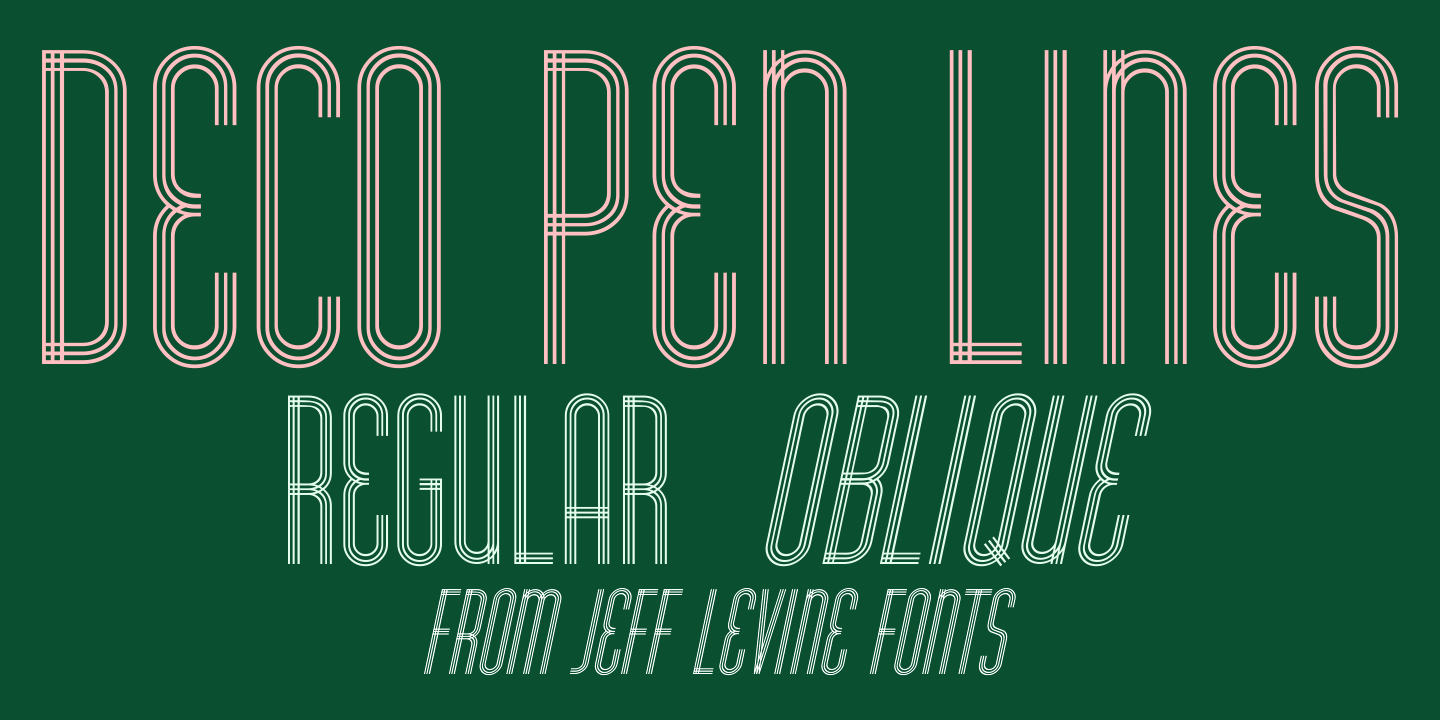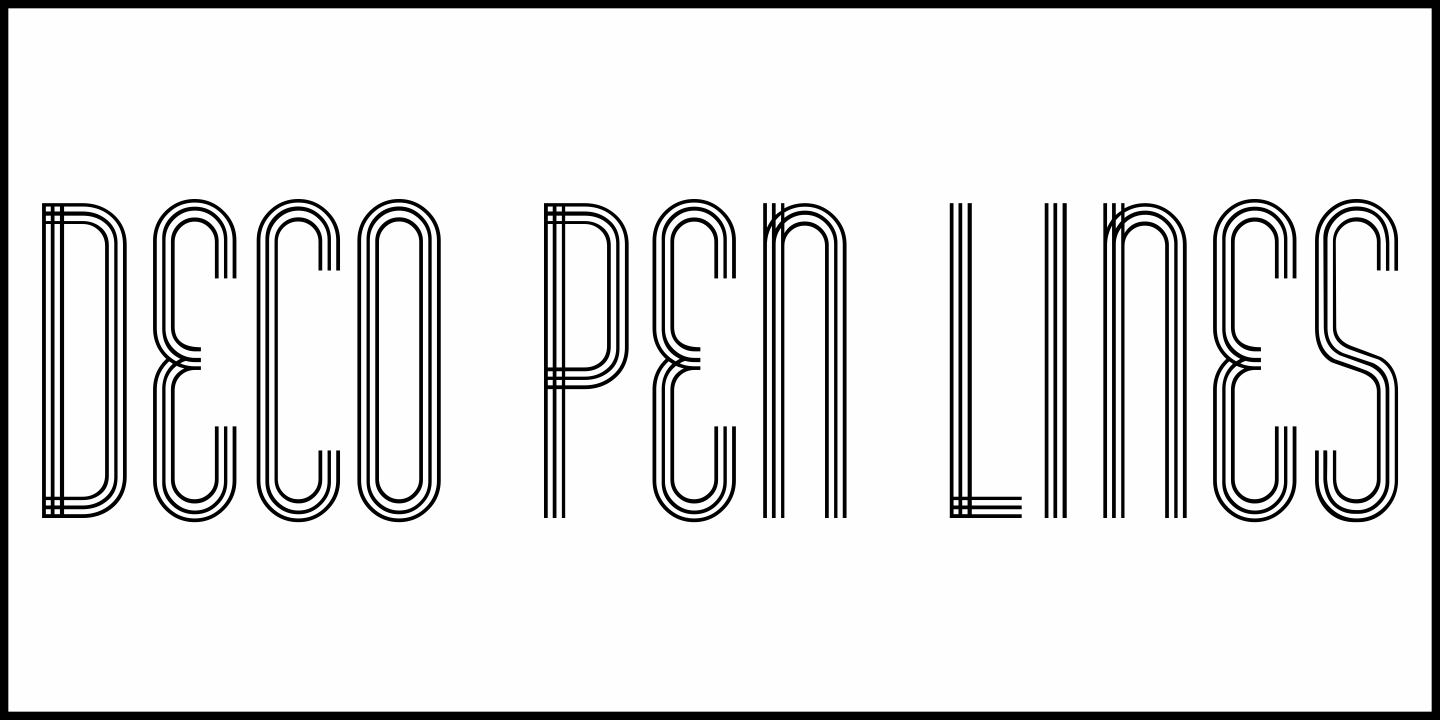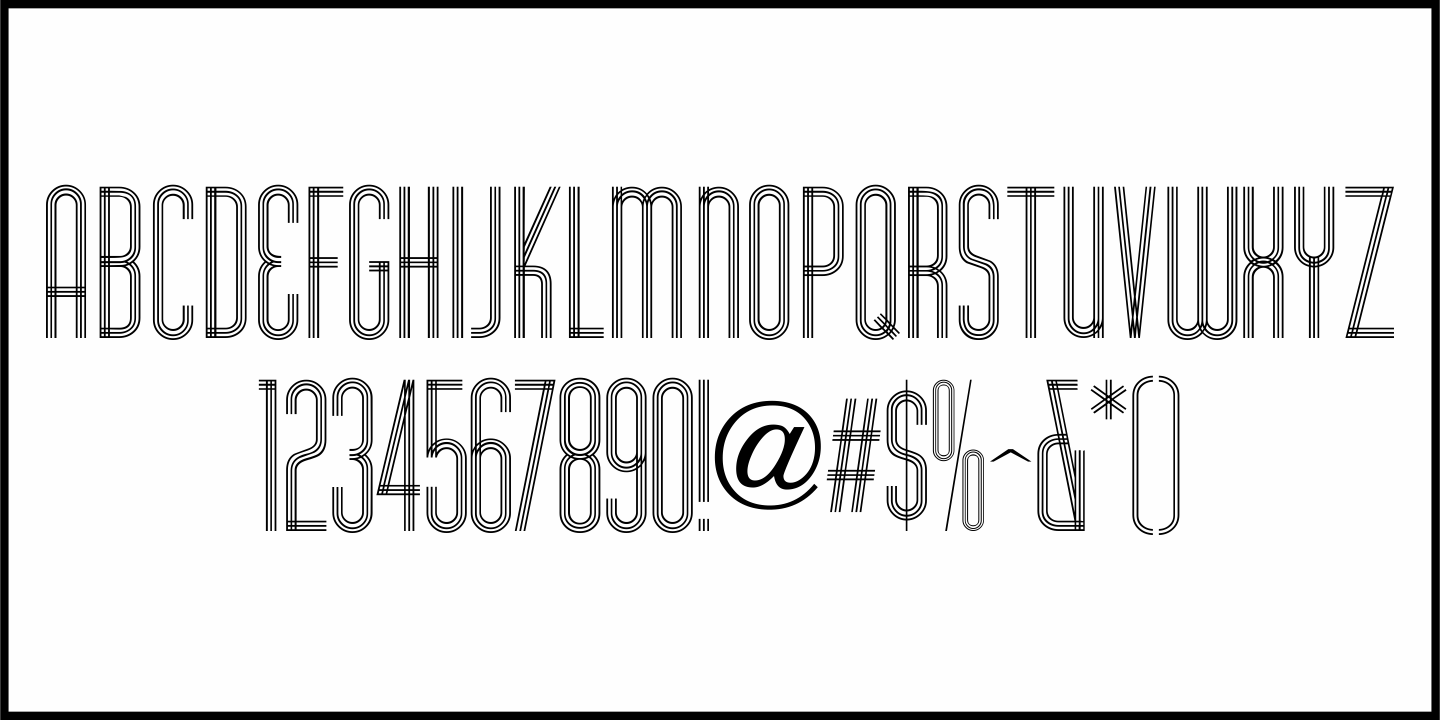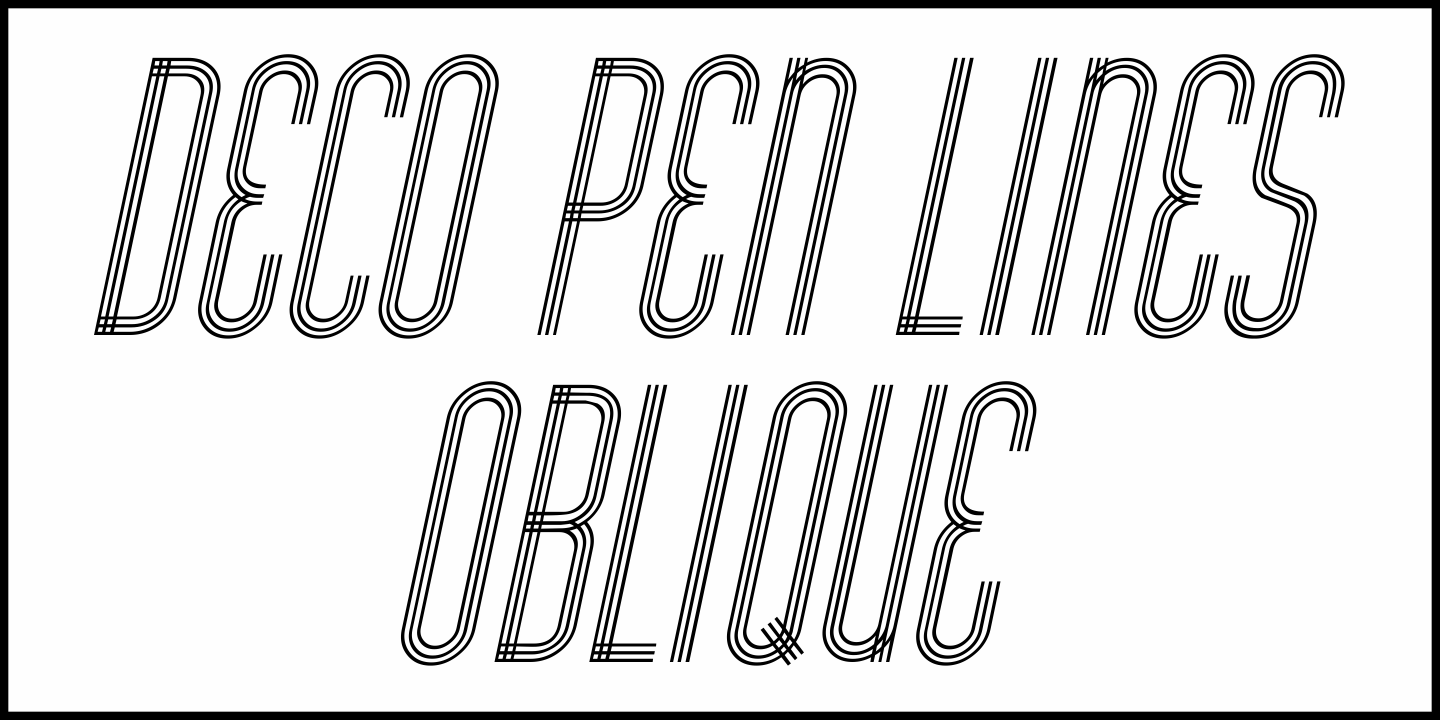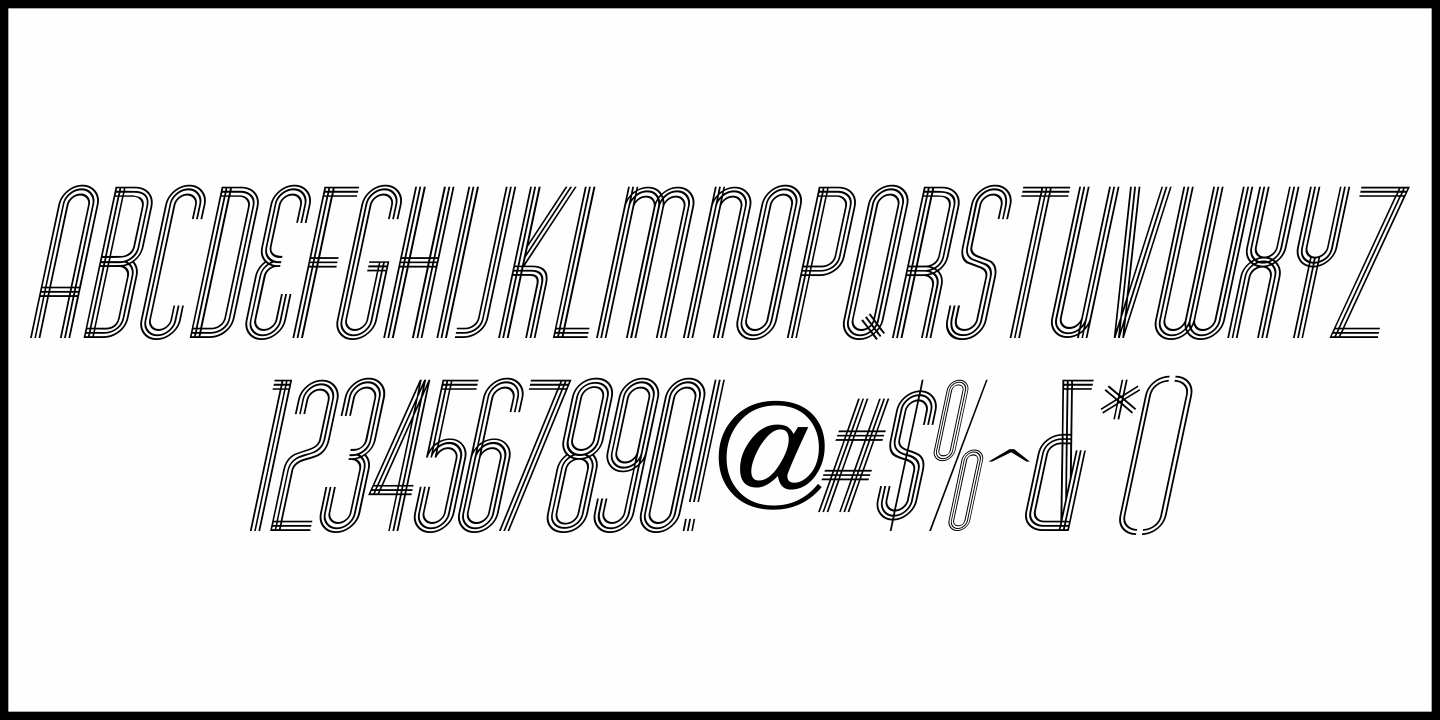
Deco Pen Lines
The September 4, 1935 issue of Motion Picture Daily carried an ad for "The Dark Angel" - the story of three friends who come of age during World War I in England.
Instead of typography that represented those early war years, the title of the film was hand drawn in a tall, condensed Art Deco style comprised of three parallel lines. In most of the characters these parallel lines intersect and cross, for a unique take on multi-line lettering.
This has been recreated digitally as Deco Pen Lines JNL, which is available in both regular and oblique versions.